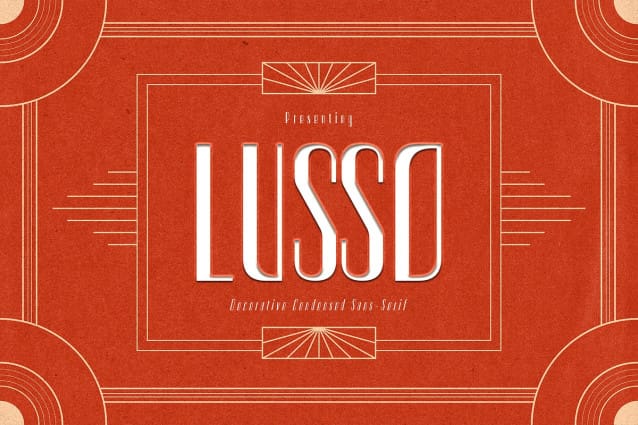
CF Lusso Font
CF Lusso Font is extravagant and evokes the Gatsby era with its sharp geometric shapes, bold lines, and condensed proportions. The letters in Lusso are condensed, meaning they are narrower than usual. This gives the font a Luxury, sleek and sophisticated look, and it can also help to save space in design layouts. CF Lusso Font is a great choice to be popular with designers and businesses that are looking for a luxurious and eye-catching font. Overall, Lusso is a versatile and stylish font that can be used for a variety of design projects. It is perfect for logos, branding, packaging, and invitations.